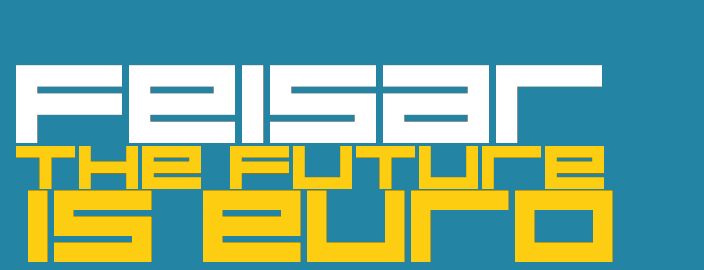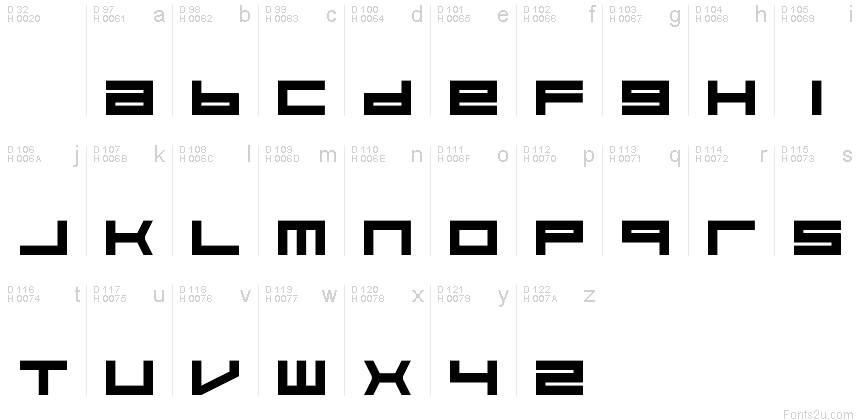
Feisar Regular
"Here is a font based on the logo and slogan 'The Future Is Euro' for Feisar, a team in the Wipeout series. The fonts feature the lower-case alphabet, and where examples are not provided, I've done my best to stick to the 'rules' of the letter structure.